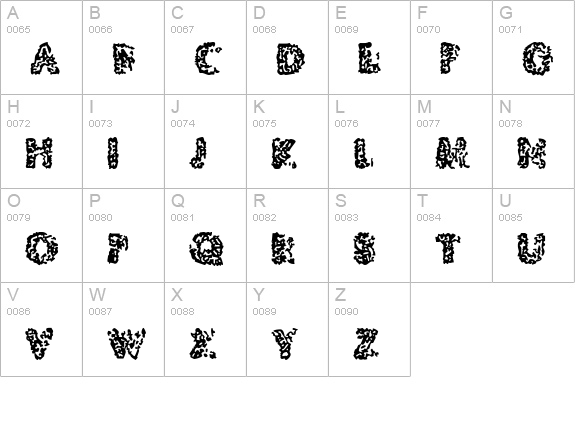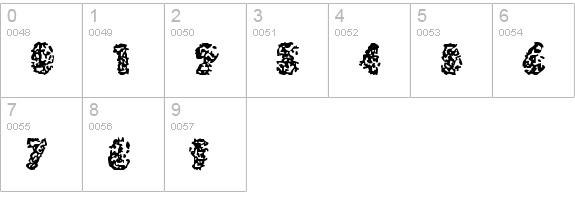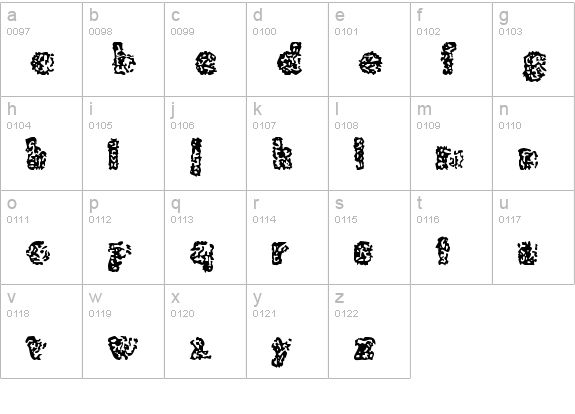
Moldy PillowRegular Font Details
Introducing Moldy PillowRegular font, a unique and quirky typeface that exudes character and charm. This font is perfect for adding a touch of whimsy to your creative projects. With its slightly irregular and distressed appearance, Moldy PillowRegular font brings a sense of vintage nostalgia to any design. And the best part? Moldy PillowRegular font is completely free to download at FontsMarket.com. So go ahead and add this one-of-a-kind font to your collection today and let your creativity shine!